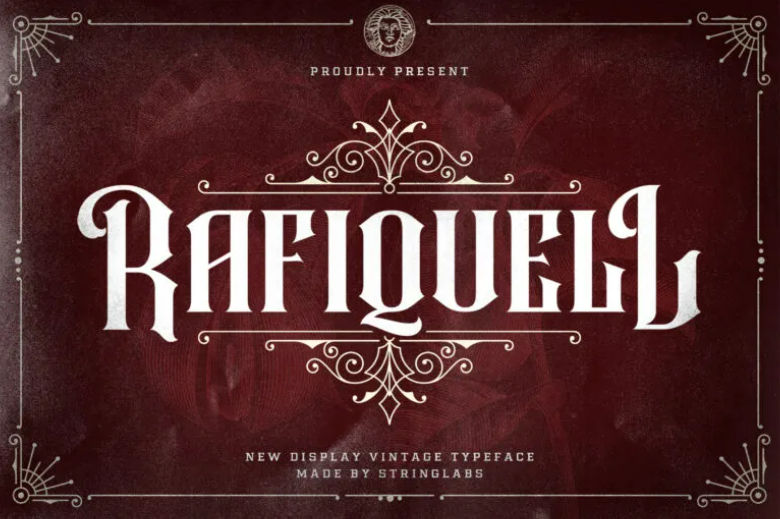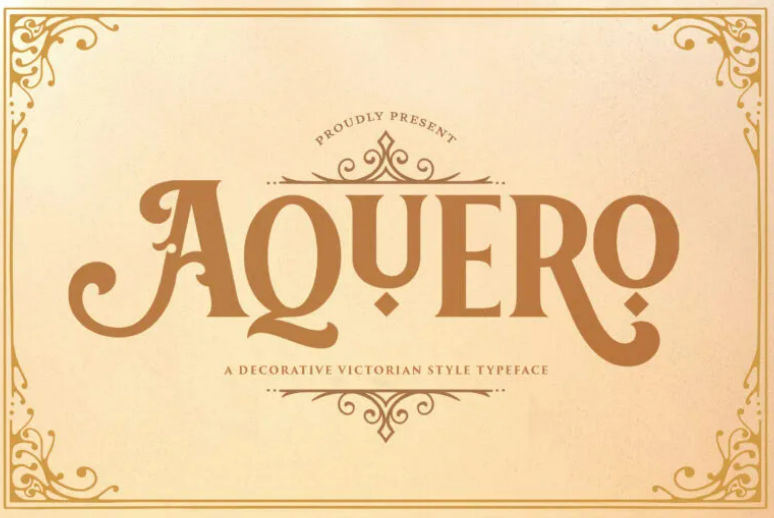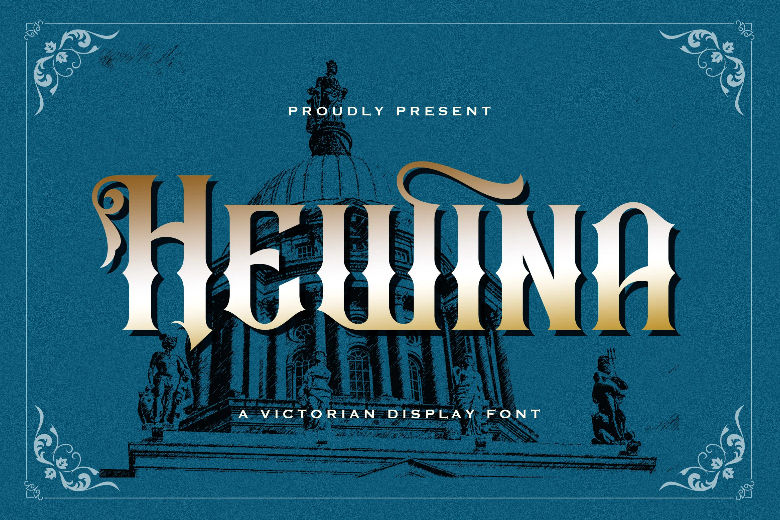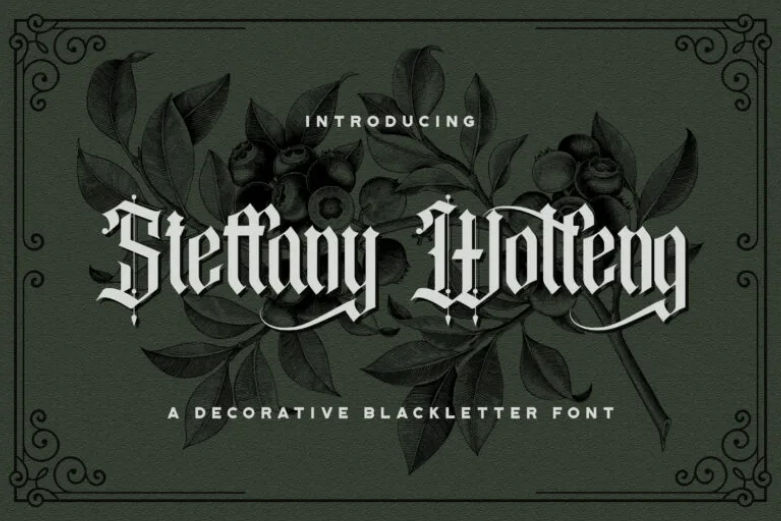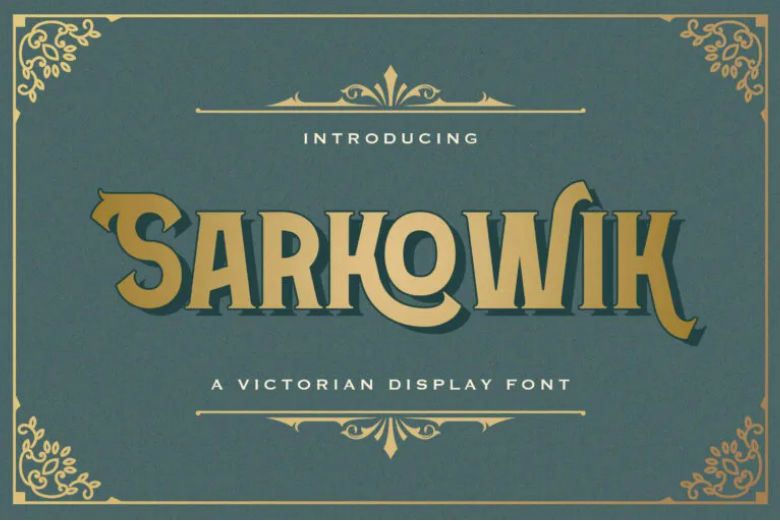
30+ Gangster Tattoo Fonts to Rise Your Studio into Fame
What kind of thought came across you when thinking about gangster tattoo fonts? Rebellious-styled font? Or instead, aesthetic and elegant ones? Indeed, many types of fonts for gangsta have diverse charisma. Whatever font you choose, make sure it fits your customers’ liking.
30+ Gangster Tattoo Fonts to Boost Your Studio
Pick your best fighter! There are Victorian-styled fonts, Blackletter-styled fonts, and Decorative ones to captivate your customers. What kind of fonts that would steal their attention?
Victorian Style
No one hates Victorian-style font for their favorite tattoo! Bet you, too, right?
Hanzow Sewick – Victorian Display Font
Hanzow Sewick - Victorian Display Font
Combined classic and modern typography poured into one of the awesome gangsta tattoo fonts. Who would resist its bold yet romantic style?
Bonwick Weaver – Victorian Display Font
Bonwick Weaver - Victorian Display Font
Say yes to engraving an old-style font on your works. Bonwick Weaver, which gives you a chill, would also give your customers an incredible feeling.
Hewina – Victorian Display Font
Hewina - Victorian Display Font
Hewina, a font that seemed Old English-ish, could surprisingly add a modern feeling to your work.
Nomer Samvilan – Victorian Display Font
Nomer Samvilan - Victorian Display Font
Love to add bold vibes to your tattoo works? Don’t hesitate to use the Nomer Samvilan font for it then.
Rowney Kahfi – Victorian Display Font
Rowney Kahfi - Victorian Display Font
The vibe that Rowney Kahfi holds as one of semi cursive gangster tattoo fonts will make your craft more popular.
Gokil Nova – Victorian Style Font
Gokil Nova - Victorian Style Font
Seemed quite familiar with this kind of font? Gokil Nova Victorian Style font could have been the favorite font for barber shops and concert posters as well.
Wazintte – Victorian Style Font
Wazintte - Victorian Style Font
Wazintte Victorian-style font could be the perfect font for a circus! But it could also turn into a cool font once you apply it to your tattoo or headline design.
Sarkowik – Victorian Style Font
Sarkowik - Victorian Style Font
Gangster tattoo fonts that feel rich and timeless at the same time? Show them how Sarkowik Display typeface can be the best font for tattoos.
Kevin Ghal – Victorian Style Font
9 Kevin Ghal  Victorian Style Font
Add a serif font to your works so that the feeling of ancient Romans is perfectly shown. One font option in that style you could use is Kevin Ghal Deco Serif font.
Raizen – Victorian Style Font
Raizen - Victorian Style Font
Prove how you love to add a gothic style to everything you own. For instance, you could apply the Raizen typeface to your tattoo.
Miztar – Victorian Style Font
Miztar - Victorian Style Font
A stylish Victorian-style font, Miztar Vintage Serif typeface, would ideally suit any modern or classic images you engraved on a tattoo work.
Ardilah Kafi – Victorian Style Font
Ardilah Kafi - Victorian Style Font
Other than being a typeface suited for tattoos, Ardilah Kafi could pull a great job as an accompanying text element to sports ads, like golf clubs.
Rafiquell – Victorian Style Font
Rafiquell - Victorian Style Font
Rafiquell may be a suitable font for an exquisite coffee package design, but it also wouldn’t be a bad idea to engrave it into a tattoo.
Rose Knight – Victorian Style Font
Rose Knight - Victorian Style Font
Fill your customers’ hearts with satisfaction by adding a Rose Knight typeface to their favorite tattoo.
Nicolas – Victorian Style Font
Nicolas - Victorian Style Font
Memories stay forever, just like tattoos filled by Nicolas New Vintage typeface.
Aquero – Victorian Style Font
Aquero - Victorian Style Font
A fan of an indie theme? Bet you’ll like the Aquero Decorative Victorian typeface, then!
Blackletter and Decorative Style
Everyone would fancy this kind of elegant, blackletter typeface. Its thin and thick strokes would give them chills.
Kingston Williams – Blackletter Font
Kingston Williams - Blackletter Font
You’ll fancy Kingston Williams Display font as one of the gangster tattoo fonts! Its decorative style would turn every head to this type of tattoo typeface.
The White Knight – Blackletter Font
The White Knight - Blackletter Font
If you are into calligraphy, The White Knight typeface is one of the gangster calligraphy tattoo fonts that is elegant yet courageous. Let’s be honest here, who could resist?
Hellios Gothic – Blackletter Font